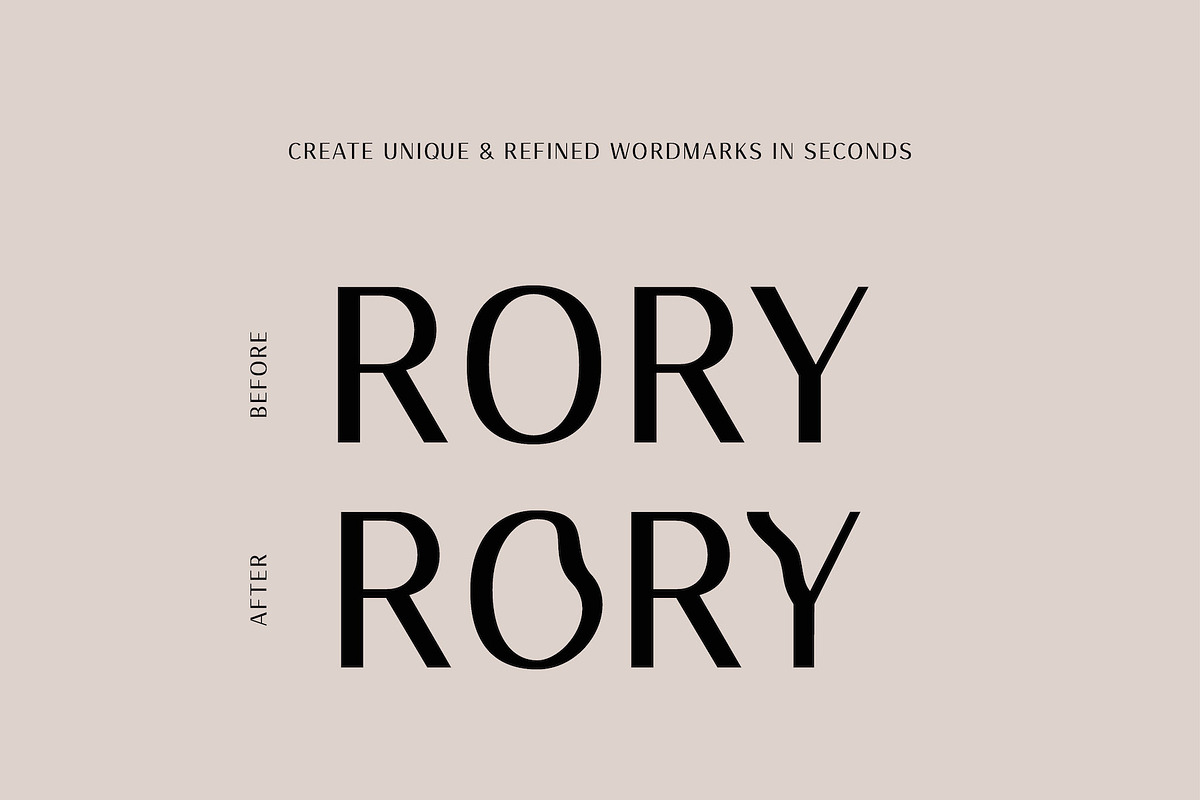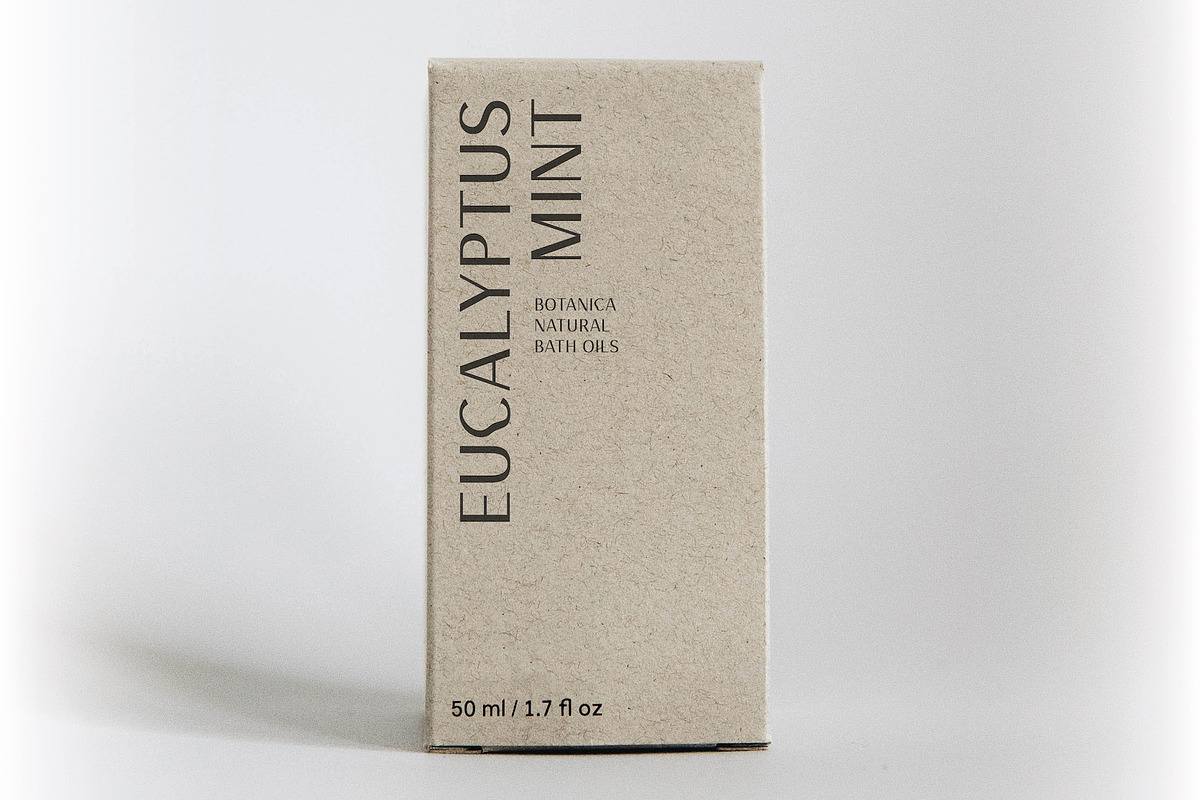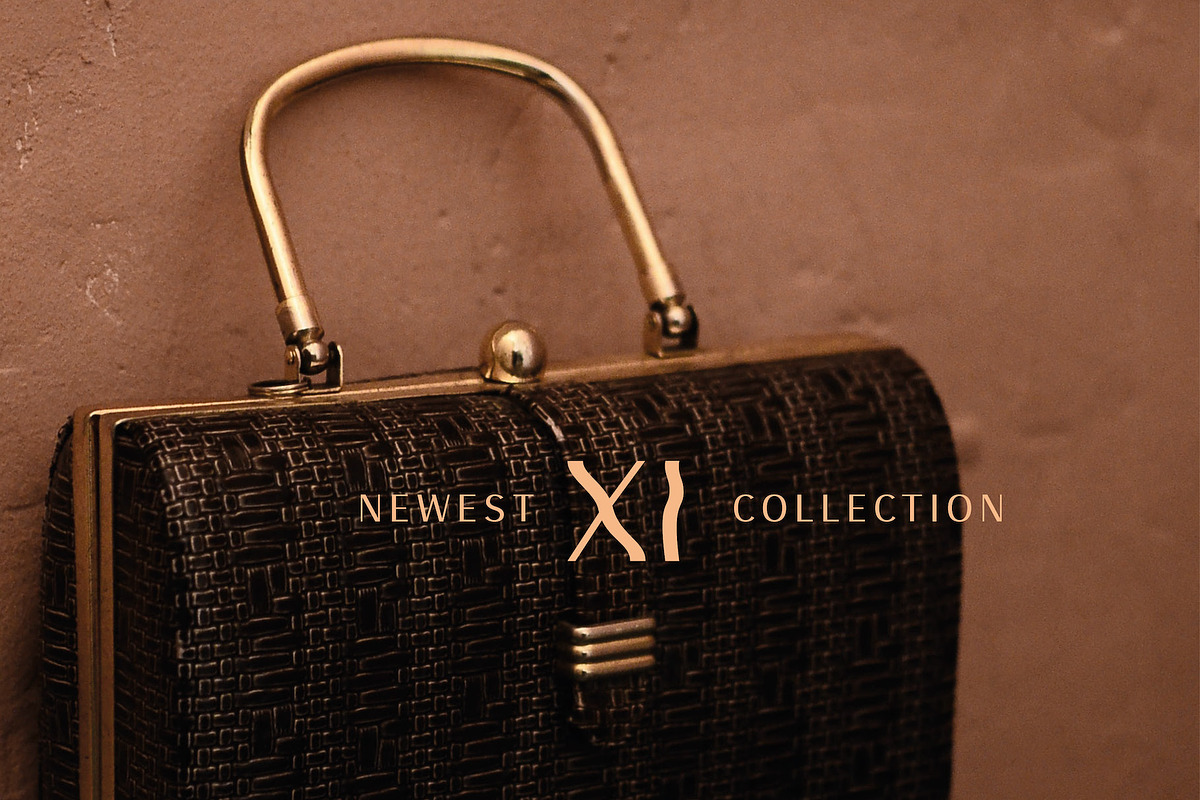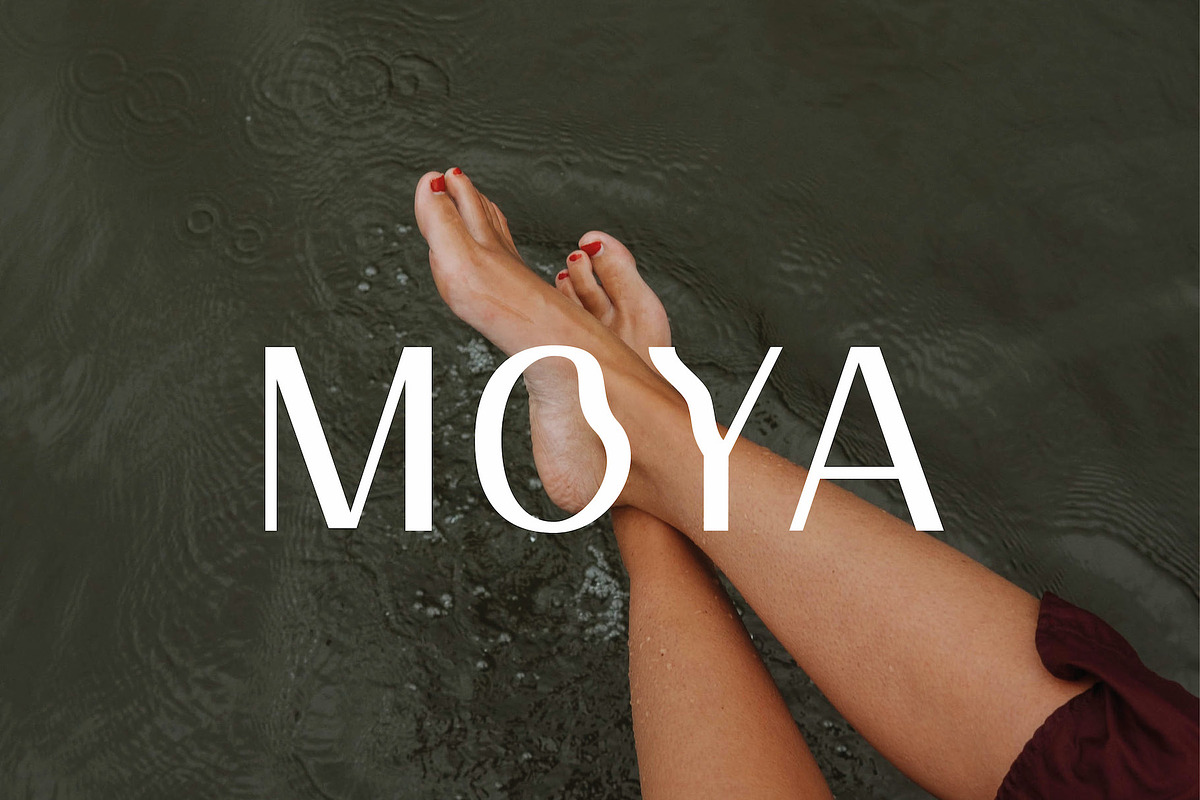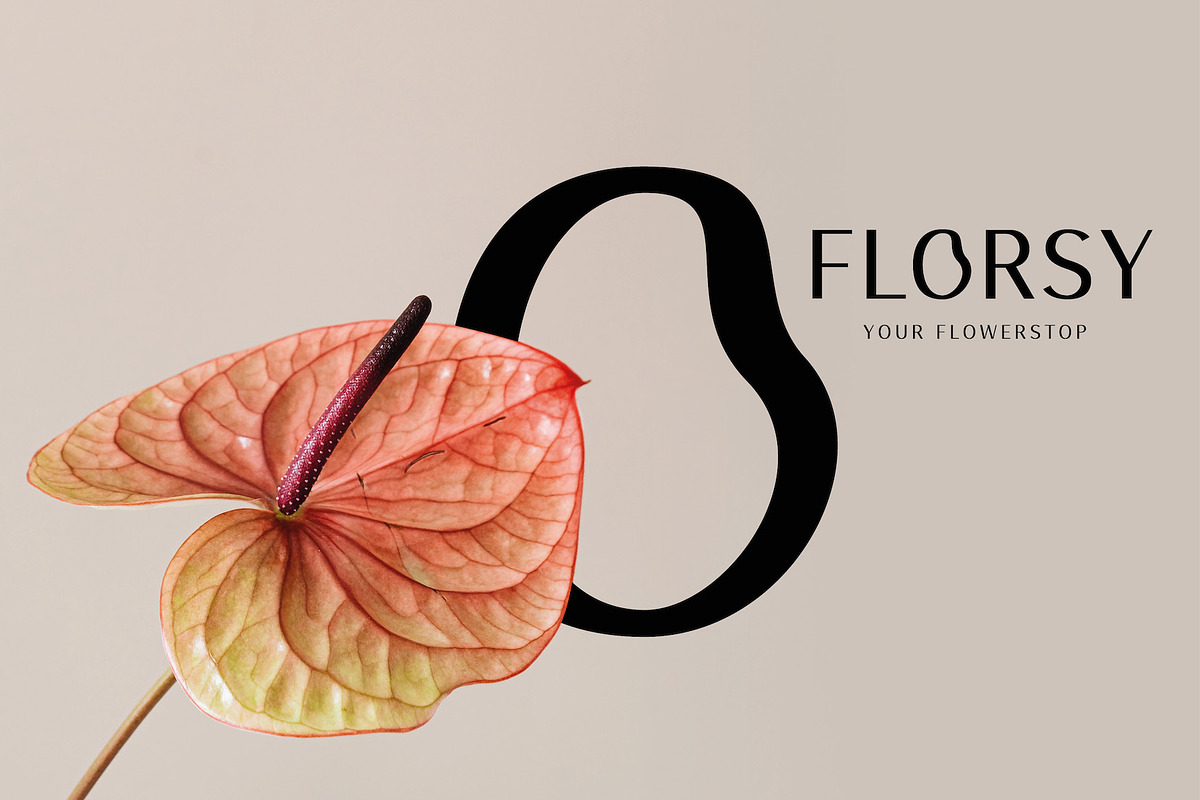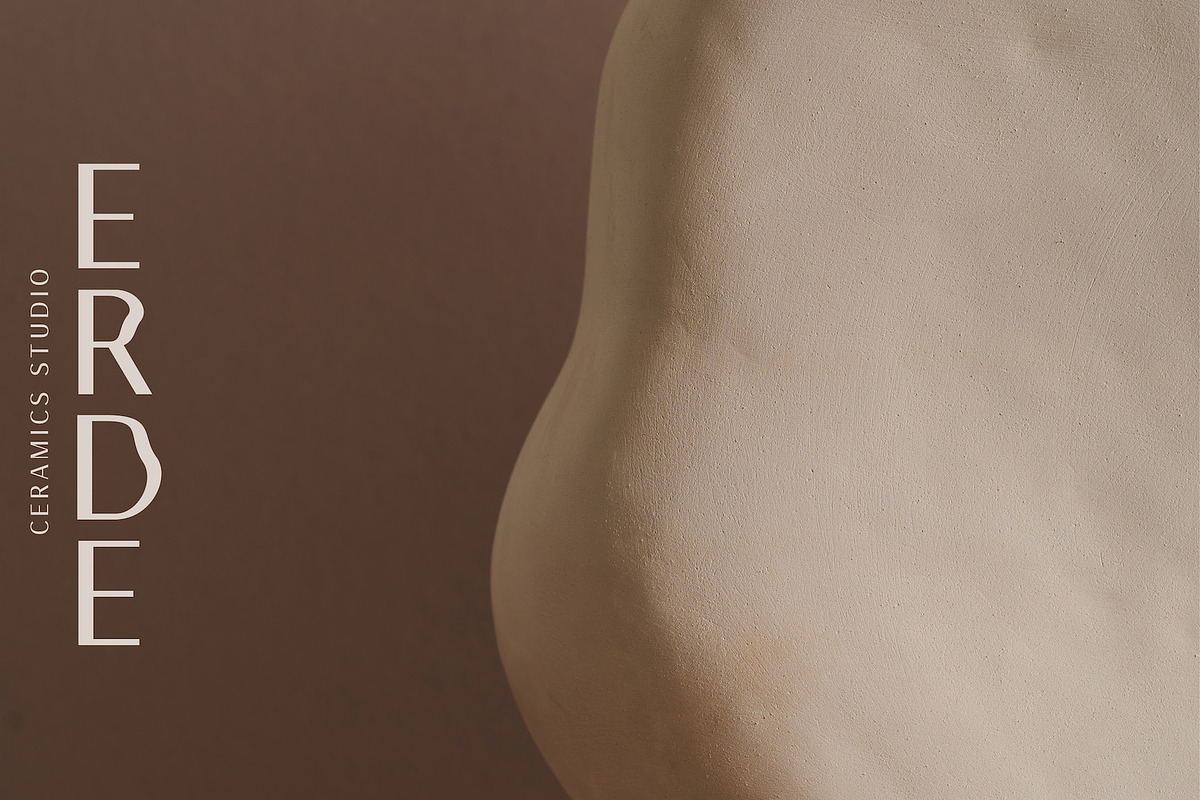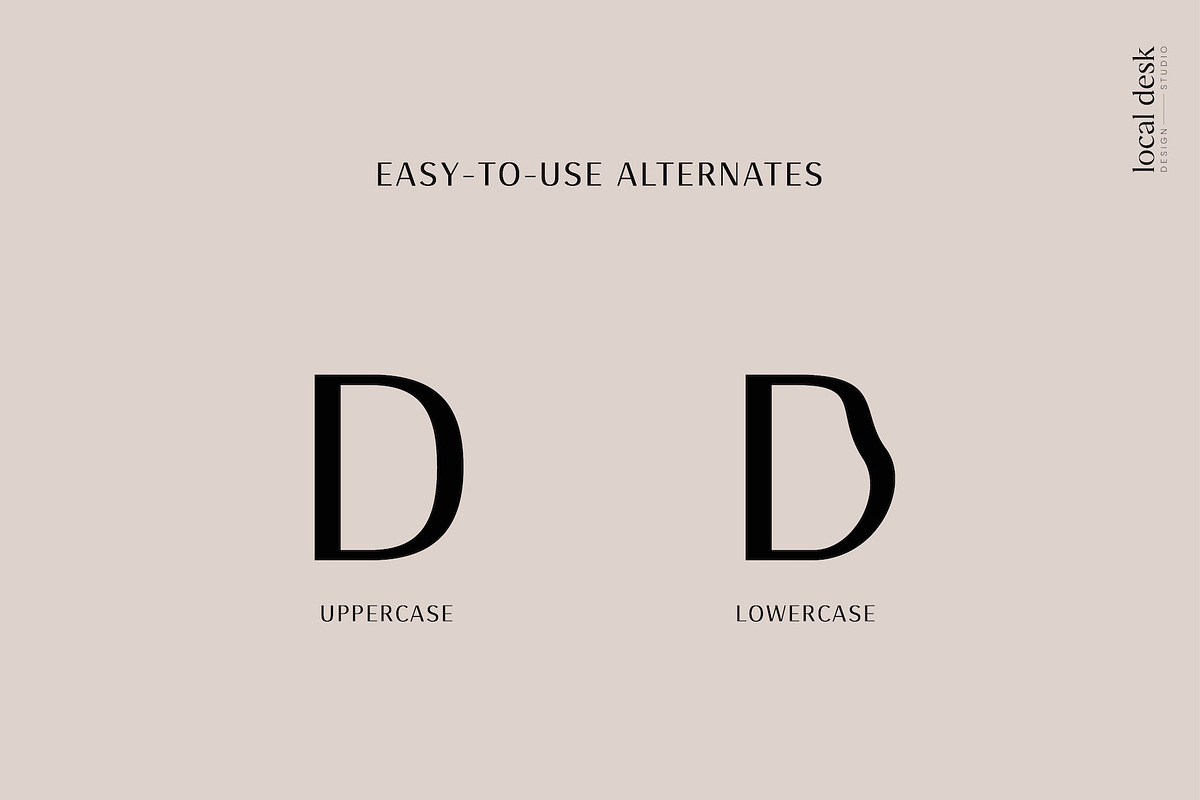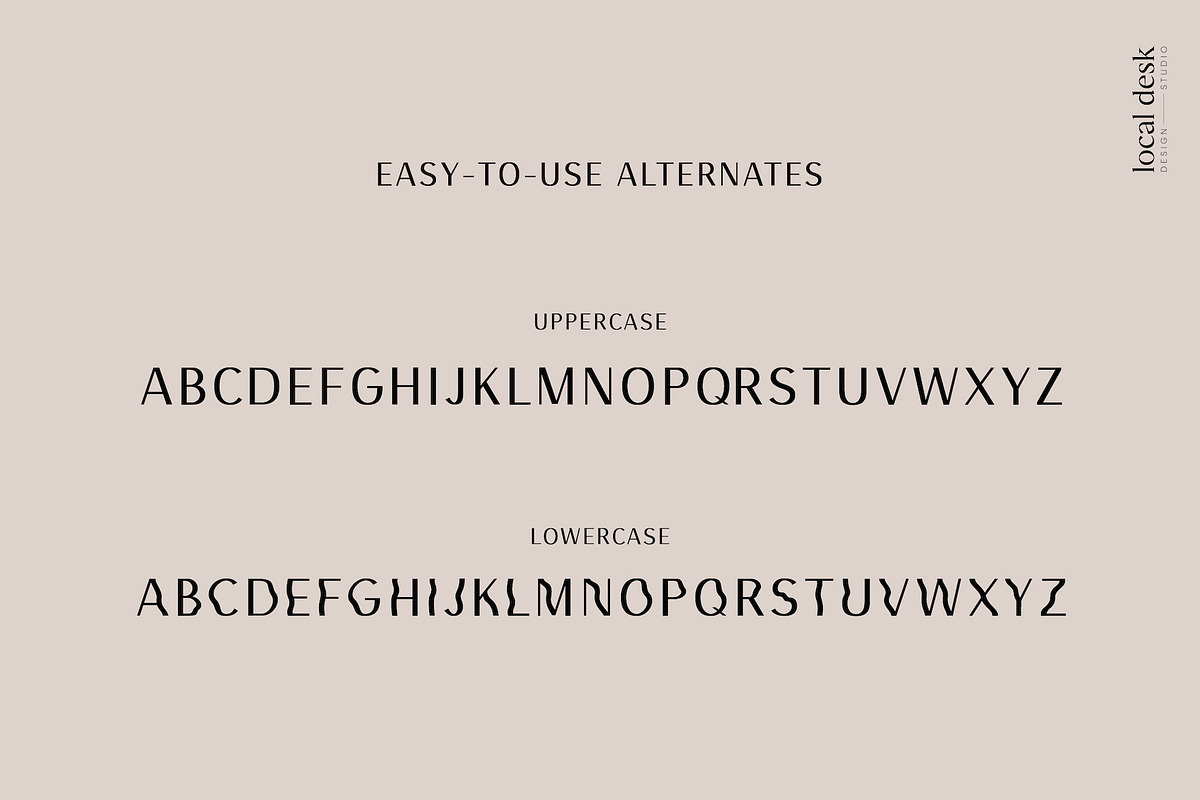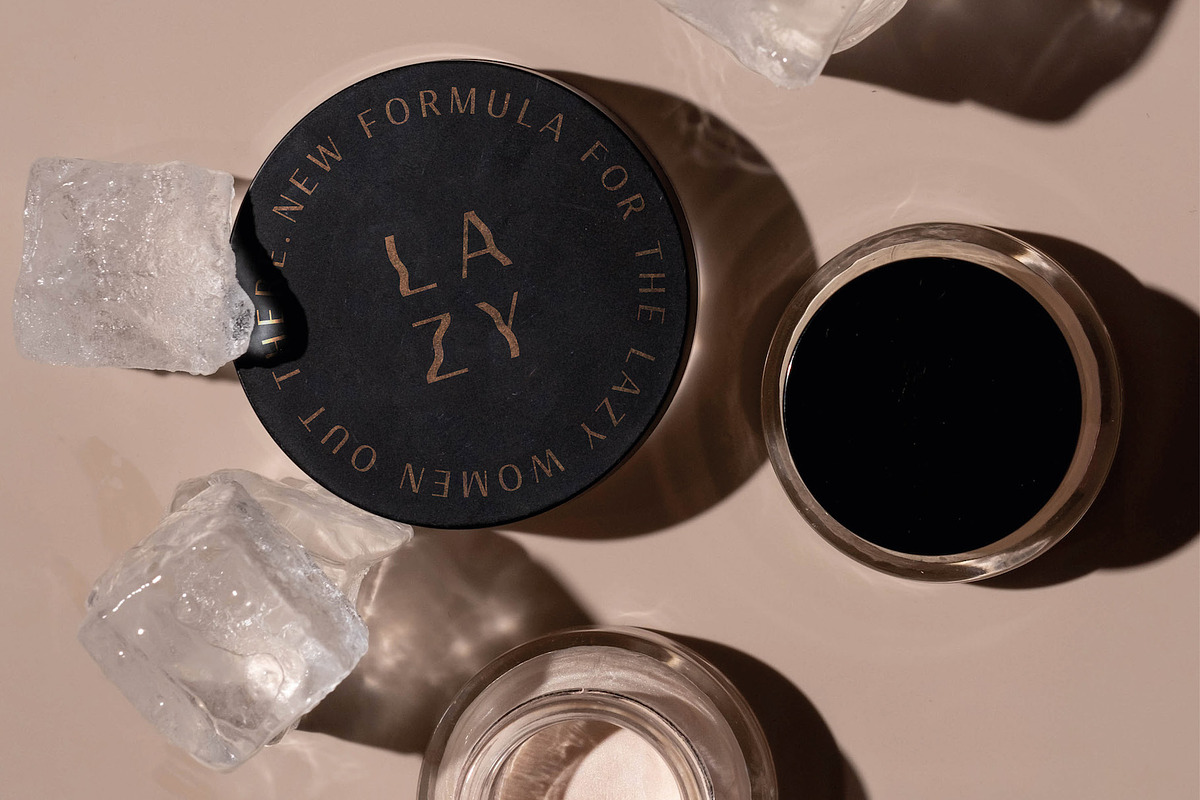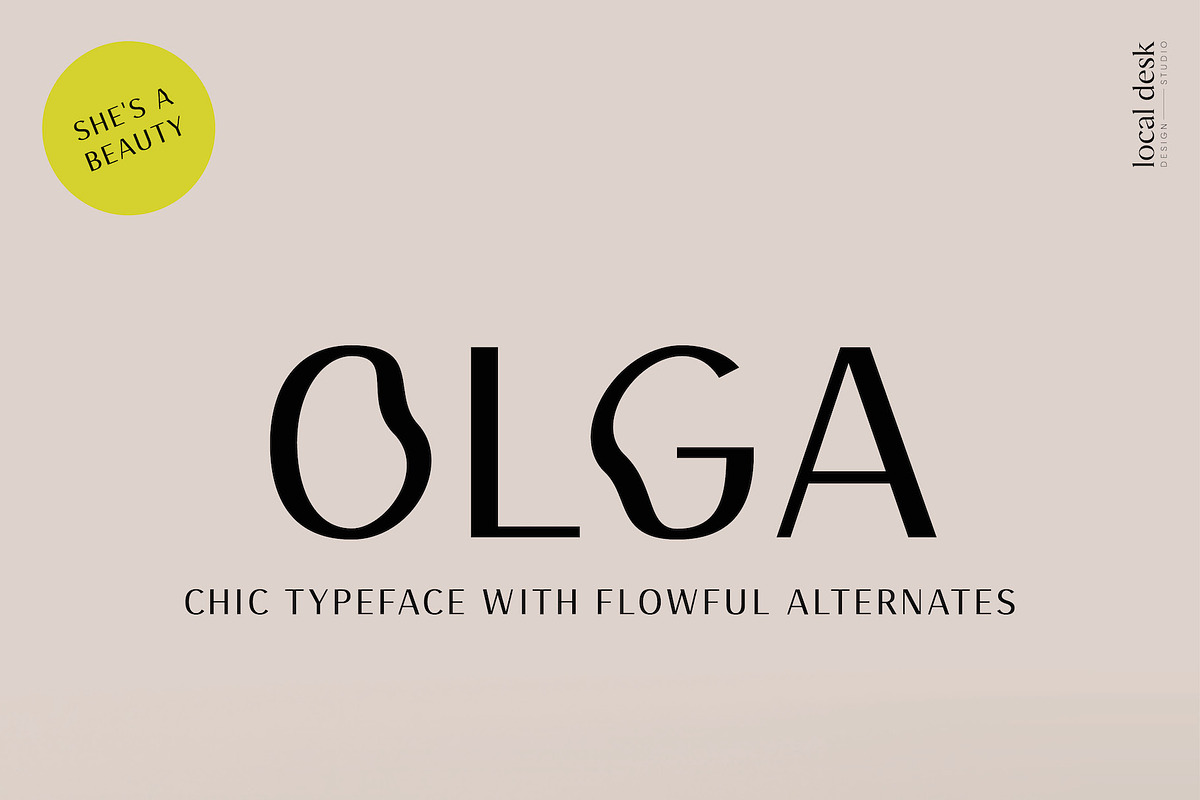
Olga Sans – Chic, Unique, Modern
Olga is a chic & refined sans serif typeface that is perfectly suited for designing unique logos & trendy brands, elegant packaging, beautiful website headers, and so much more!
This font is equipped with 26 classy alternates to make everything you design look bespoke, customized and professional. The thoughtfully designed alternates in combination with the timeless & clean main characters create the perfect balance for your design project.
The alternate characters can be used by simply typing the appropriate lowercase letter. This way you can create modern & individualized word marks within seconds – AND you can do this in any software e.g. Canva.
This font is perfect for: distinctive branding, elegant cover designs, stylistic headlines, trending packaging, meaningful quotes and so much more.
Check out the sample images above to see what you can create with Olga, and test out any sample text you'd like in the box below those images. Extra tip: use the alternates sparingly and with intention to create a design that looks refined and professional.
- Uppercase Letters
- 26 Stylistic Alternates
- Numbers & Punctuation & Basic Symbols
- basic Non-English support